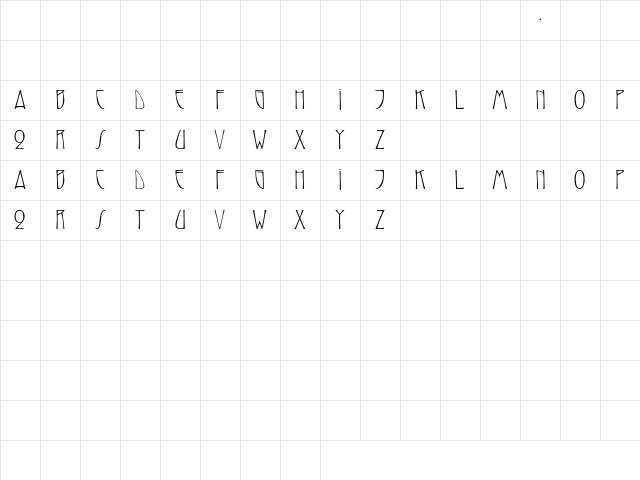
ReynoldCaps Regular Free Font
ReynoldCaps Regular
Design Context for ReynoldCaps
ReynoldCaps is a composed and adaptable typeface that performs quietly and consistently across a wide range of design contexts.